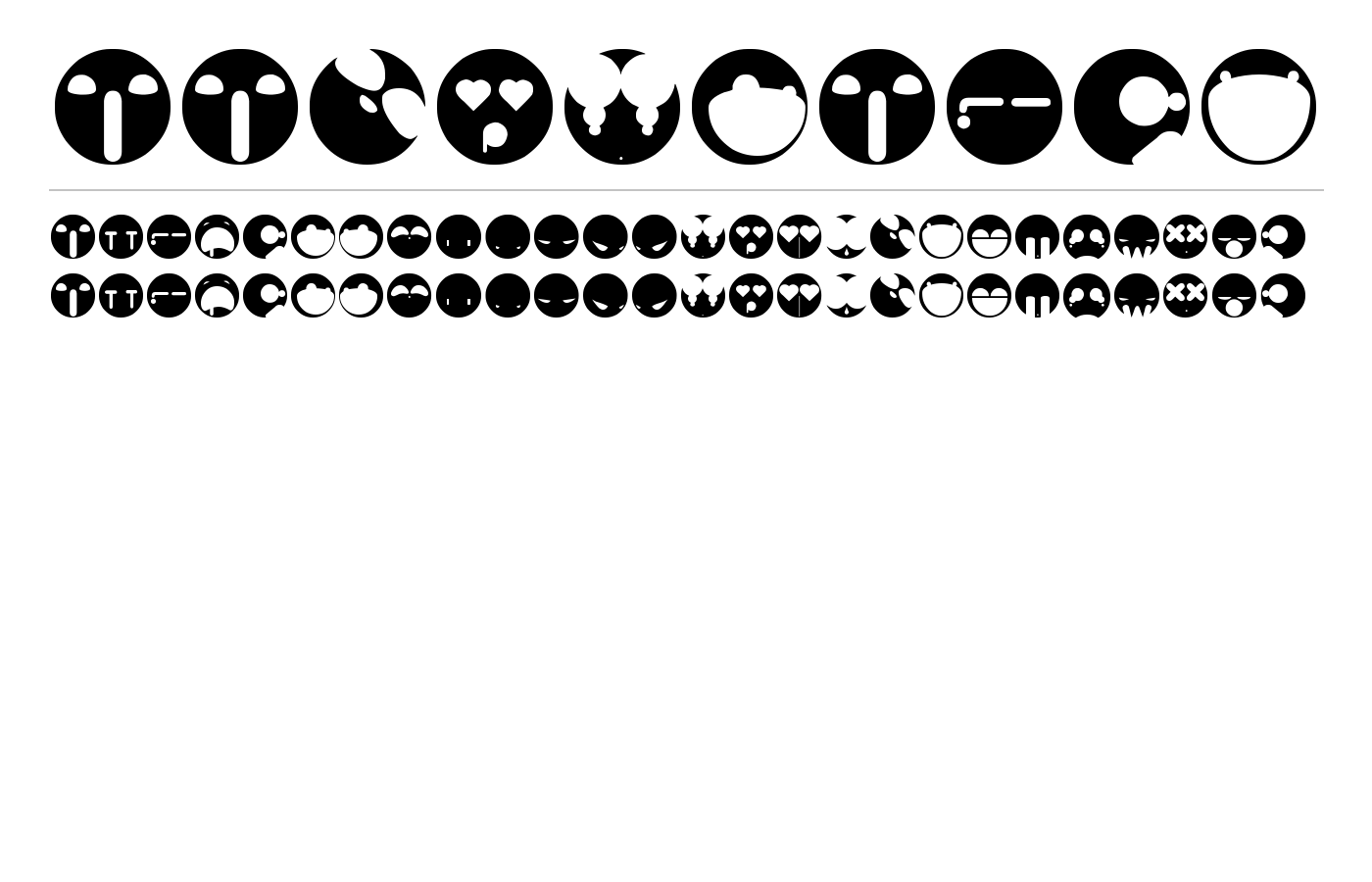
aaronfaces Font is a playful and creative symbol font featuring stylized circular faces with minimalist, expressive details. Its bold, monochromatic design makes it perfect for fun, informal projects, adding personality through simple shapes and emotive icons rather than traditional letterforms. This font works well for casual branding, social media graphics, and youthful packaging where a quirky and approachable vibe is desired.
aaronfaces Font
About aaronfaces Font